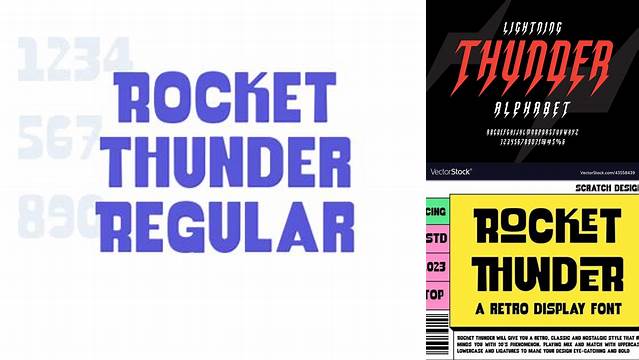
Rocket Thunder Font: Free Download Guide
1. What is Rocket Thunder Font?
Rocket Thunder Font is a display font known for its bold, dynamic, and slightly retro aesthetic. It often features sharp angles, thick strokes, and a distinctive character that makes it ideal for headlines, posters, logos, and other design elements where you want to grab attention. The font exudes a sense of energy and speed, making it a popular choice for projects related to sports, gaming, or anything that needs a powerful visual impact. Think vintage comic book vibes meets modern design sensibilities!
Understanding Rocket Thunder Font means appreciating its versatility. While it's primarily used in large-scale designs due to its bold nature, it can also be incorporated into smaller elements if used judiciously. Designers often pair it with cleaner, more minimalist fonts to create a balanced visual hierarchy. For example, using Rocket Thunder for a title and a simple sans-serif font for the body text can create a visually appealing contrast. Its unique letterforms and overall aesthetic make Rocket Thunder Font a go-to option for anyone looking to add a touch of retro flair and contemporary dynamism to their work.
The Rocket Thunder Font family may come in various weights and styles, including regular, bold, italic, and more, offering flexibility for different design needs. Some versions may also include additional glyphs and ligatures, enhancing its typographic possibilities. When considering Rocket Thunder Font, it's crucial to check the specific license terms associated with the version you intend to use, especially if it’s for commercial projects. This ensures you comply with the font creator’s requirements and avoid any copyright issues. Ultimately, Rocket Thunder Font is more than just a typeface; it’s a design tool that can significantly elevate the visual impact of your projects.